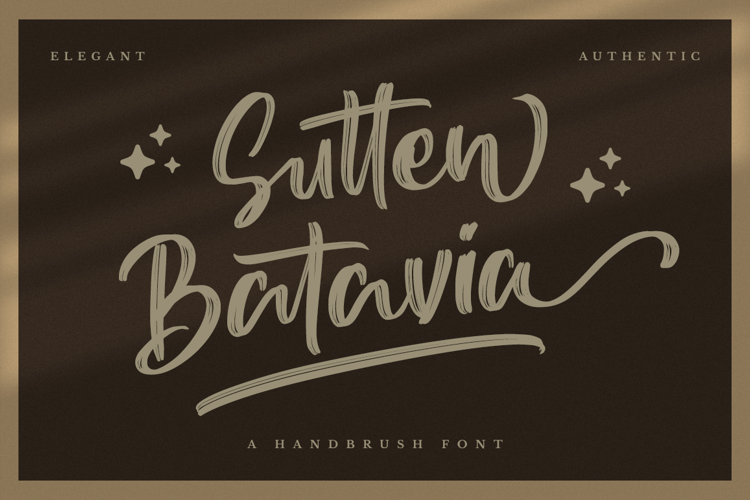
Sutten Batavia Font
Sutten Batavia is a unique brush font, perfect for use in modern design projects. This font has a slightly aggressive edge, and works well in displays for use in digital media.